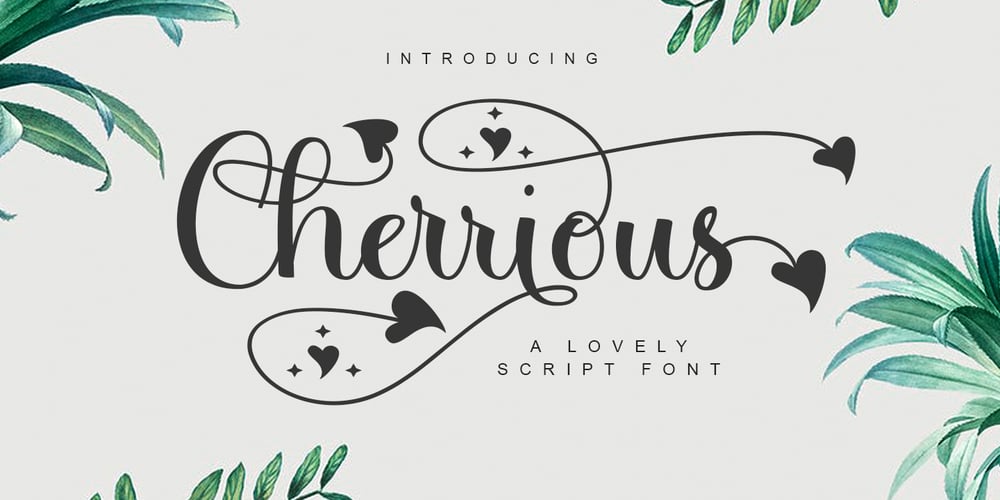
Cherrious
Cherrious font
Cherrious Font Family was designed by Kurniadi Saputra and published by Cooldesignlab. Cherrious contains 1 styles and family package options. Cherrious is a soft and sweet handwritten font. Fall in love with the original feel and love-shaped swash character. This font is perfect for creating beautiful wedding invitations, beautiful stationery art, eye-catching social media posts, Logos, Brands, and cute greeting cards.This display font is the perfect choice for creating original and extraordinary designs. This font is PUA coded which means you can easily access all the heart themed glyphs ! It also features many special features including glyphs and alternate ligatures.